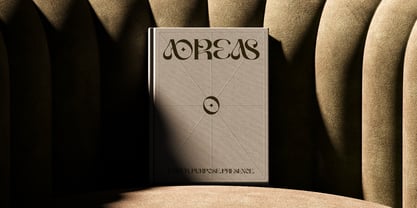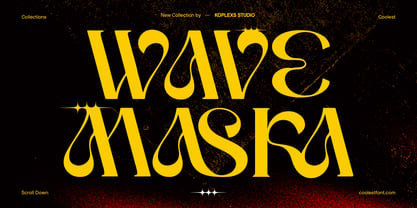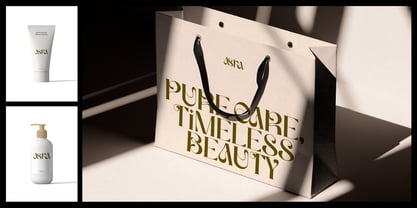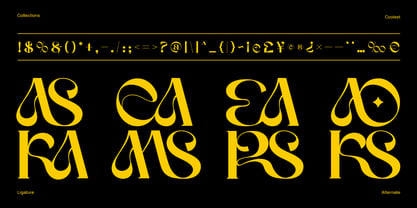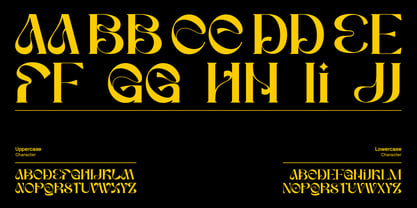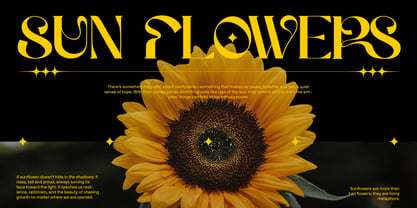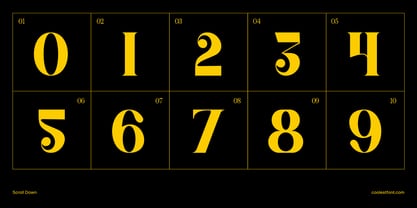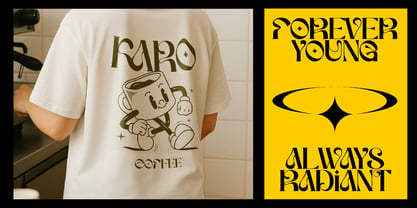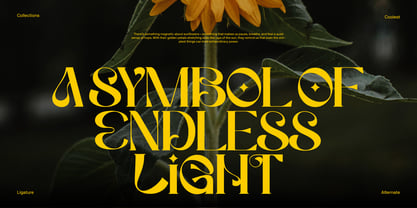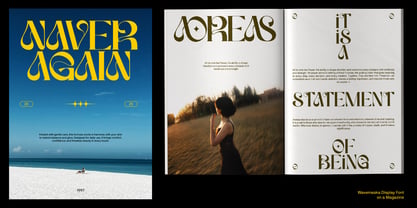
Wave Maska
by Koplexs Studio
The Wave Maska Font Family was designed by Ahmad Muslimin and published by Koplexs Studio. Wave Maska contains 1 styles. More about this family
Wave Maska Font is a bold decorative serif characterized by flowing curves, dramatic contrast, and playful letter details. This typeface seamlessly blends retro typography, psychedelic shapes, and elegant Art Nouveau influences, resulting in an artistic, confident, and easily recognizable design. Each character possesses a strong visual personality, transforming simple words into expressive and thoughtfully crafted statements. Ideal for logos, brand identities, posters, fashion campaigns, beauty packaging, editorial headlines, magazine covers, album artwork, merchandise, website banners, social media graphics, and product labels, this font offers versatility for various applications. Its decorative uppercase, stylish lowercase, creative ligatures, alternate characters, numbers, and punctuation provide the freedom to create unique layouts with a custom lettering feel. Wave Maska excels in larger sizes, where its curved strokes and distinctive shapes stand out prominently. For a balanced design, pair it with a clean sans serif for supporting text, ensuring readability. Incorporate Wave Maska Font into your collection to transform ordinary titles, names, and short phrases into memorable visual statements.
Designers: Ahmad Muslimin
Foundry: Koplexs Studio